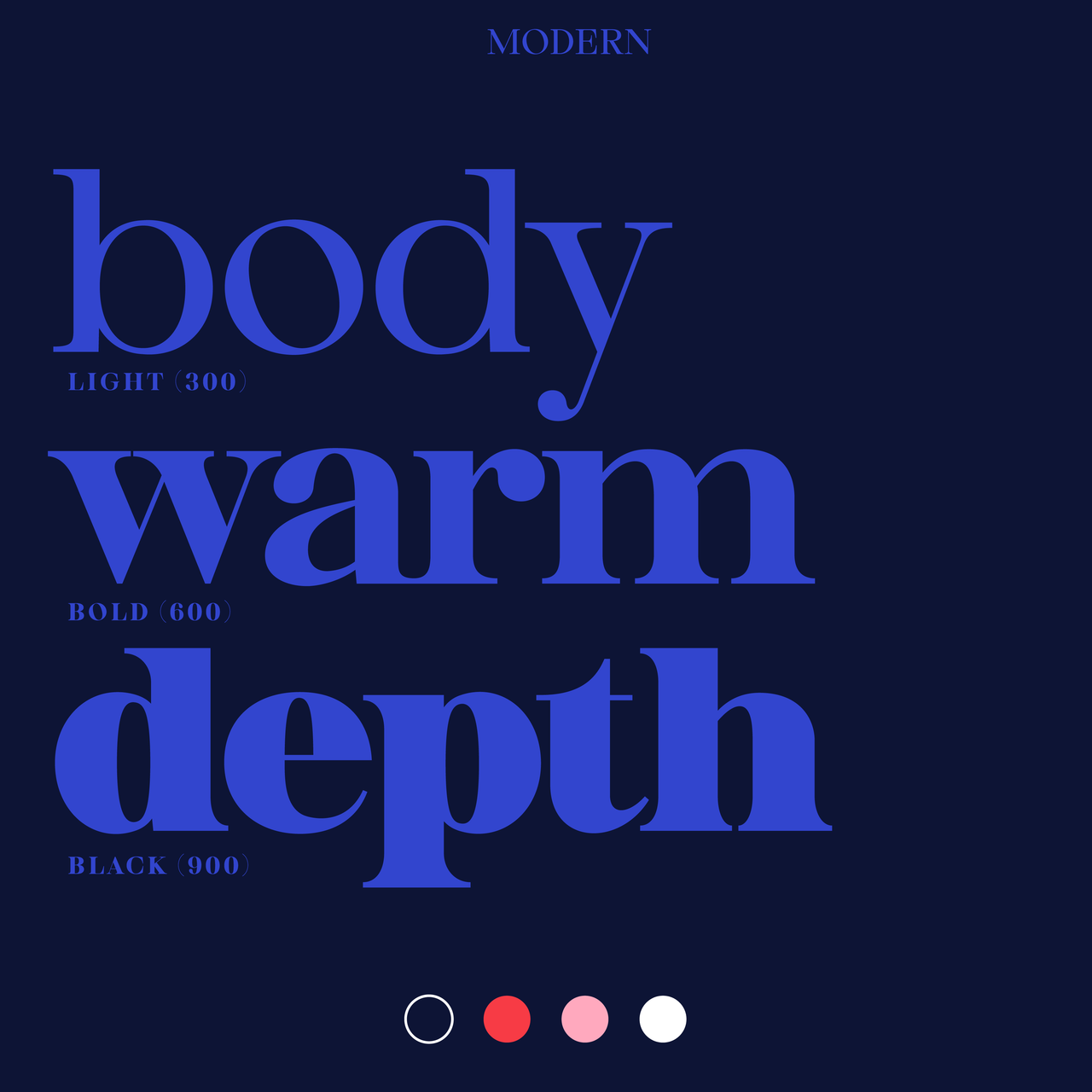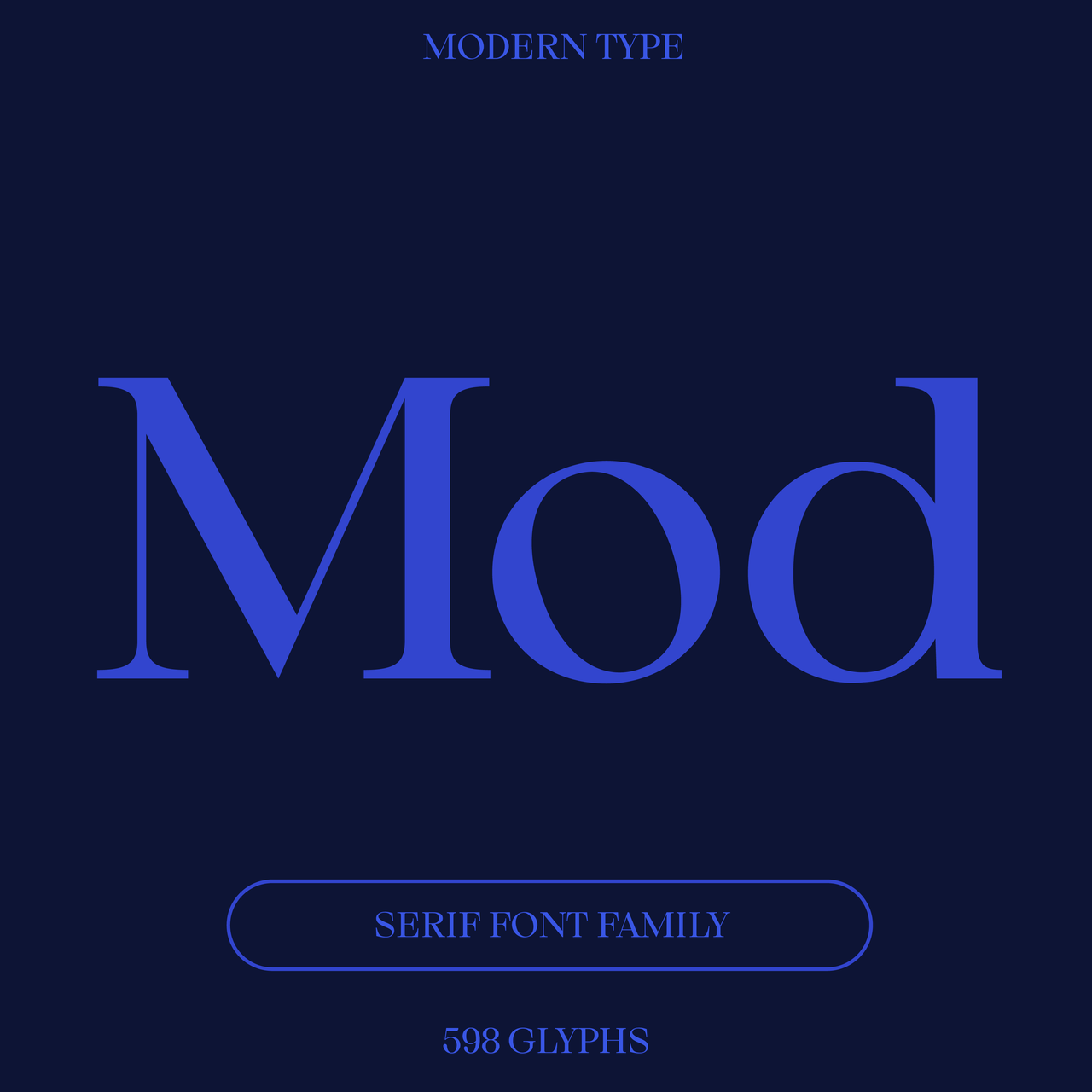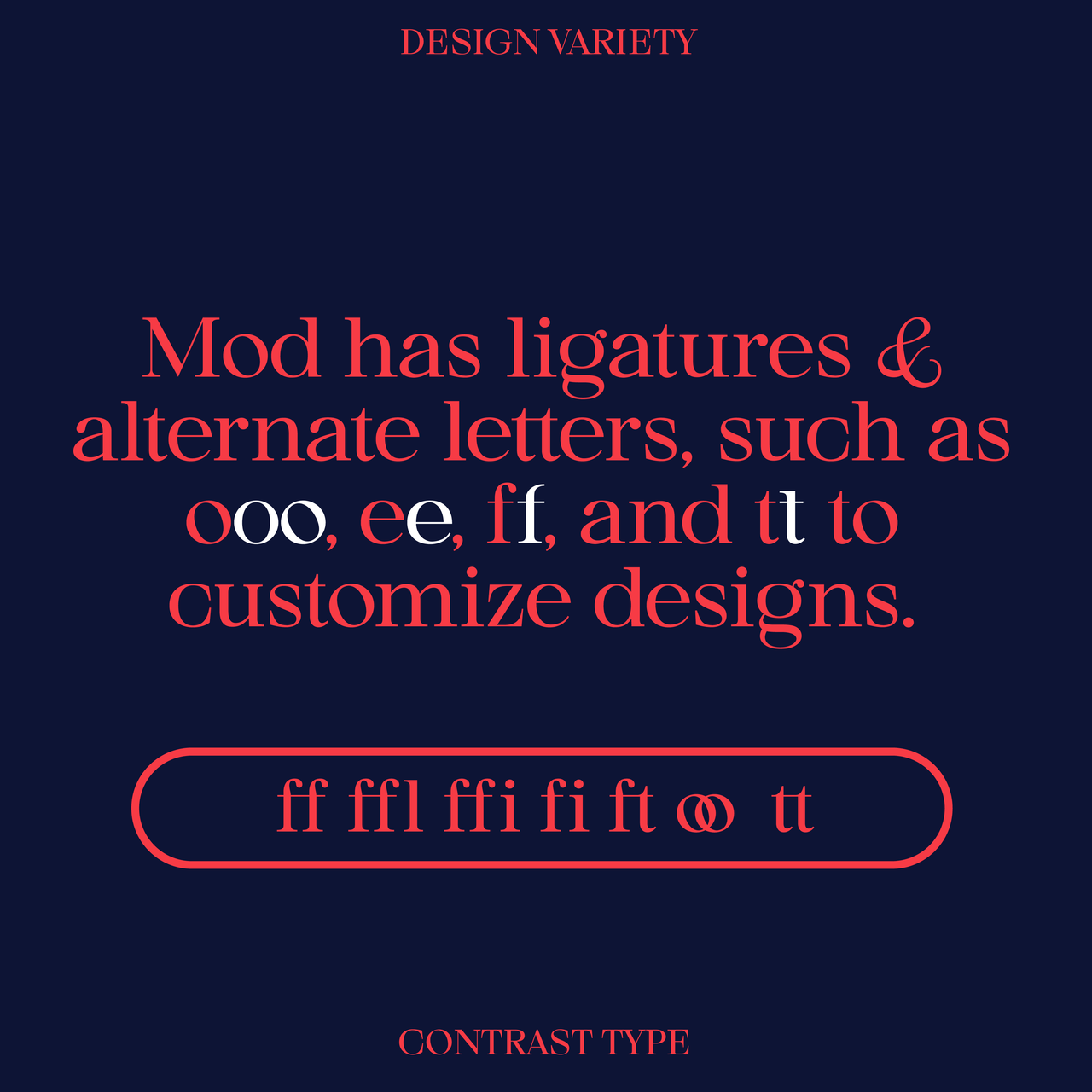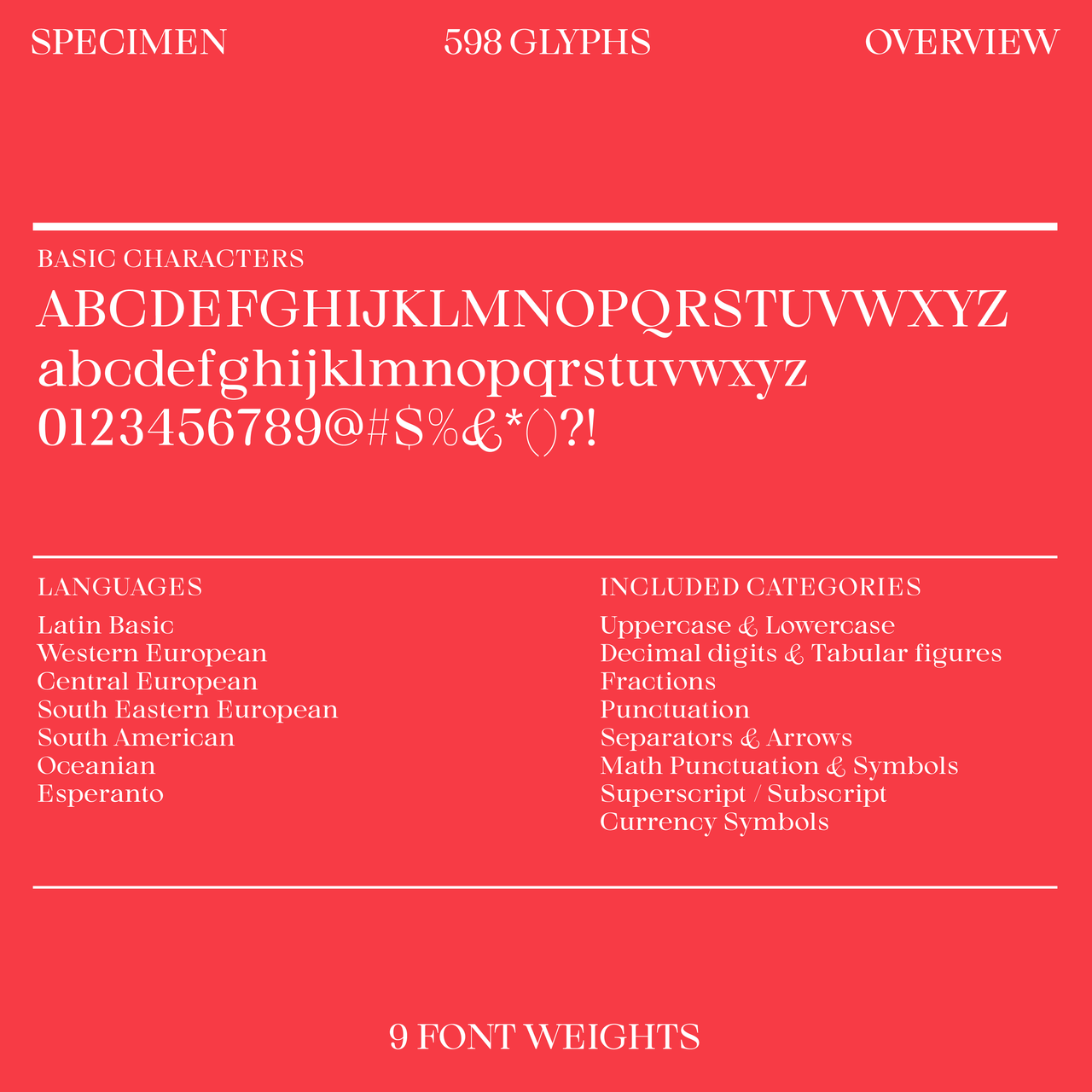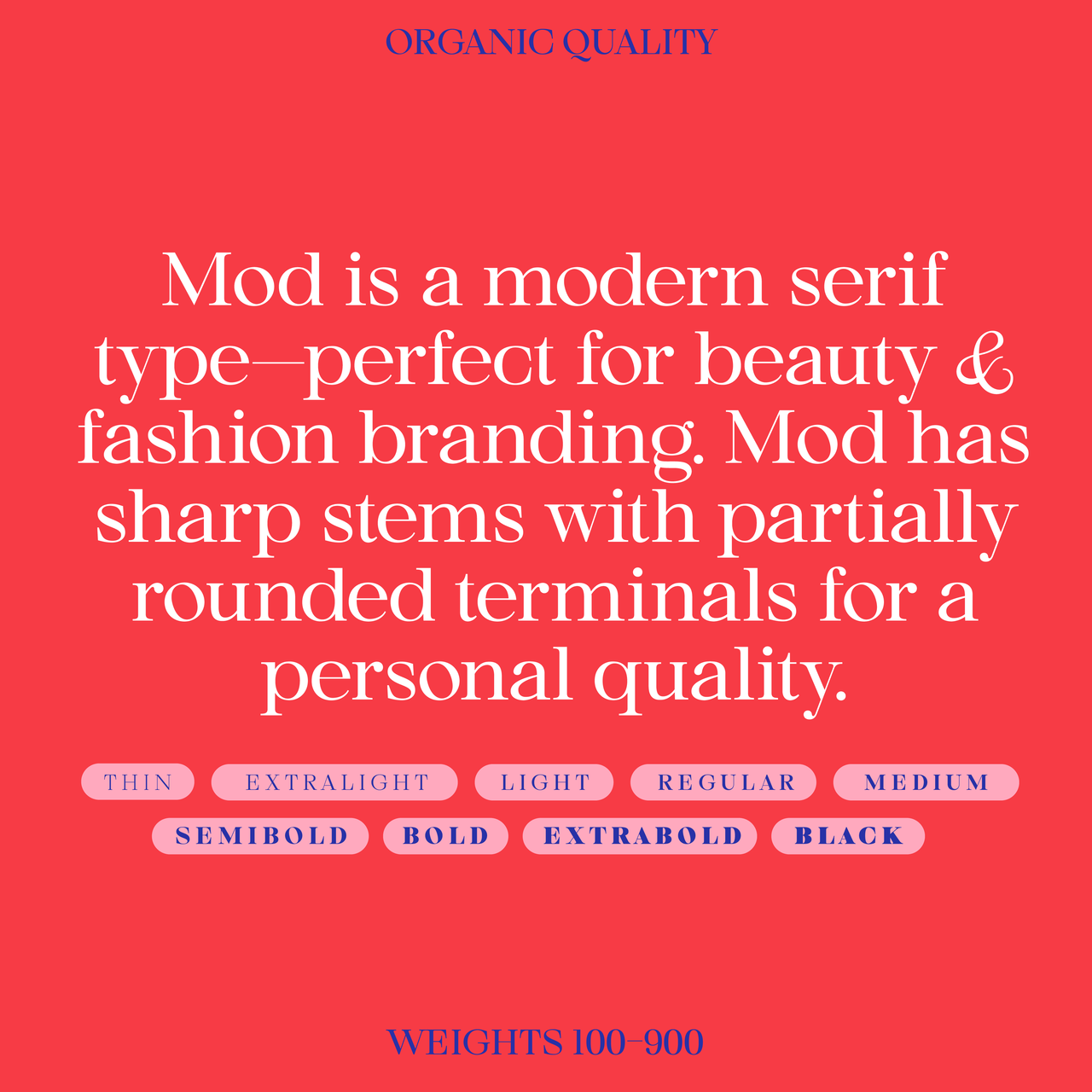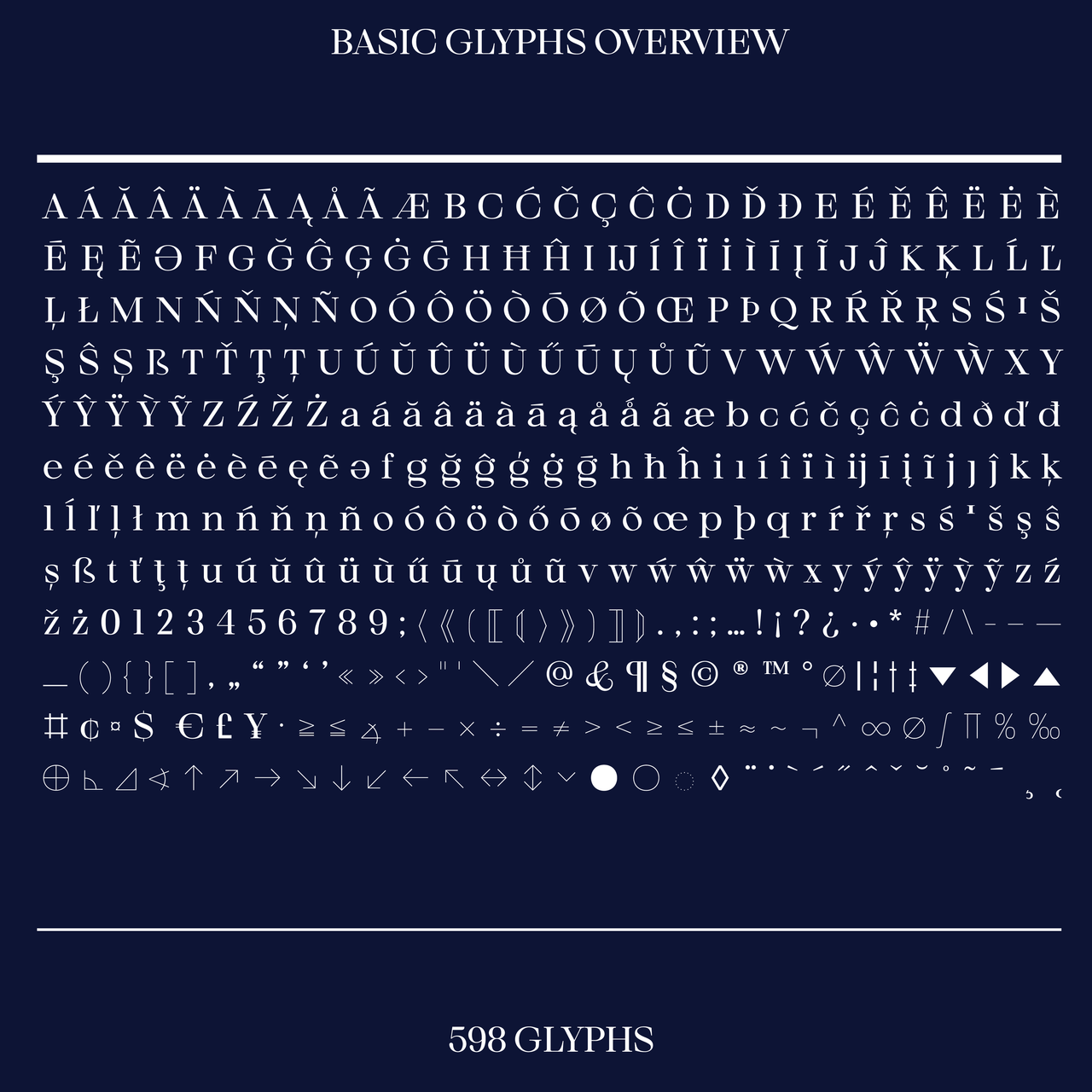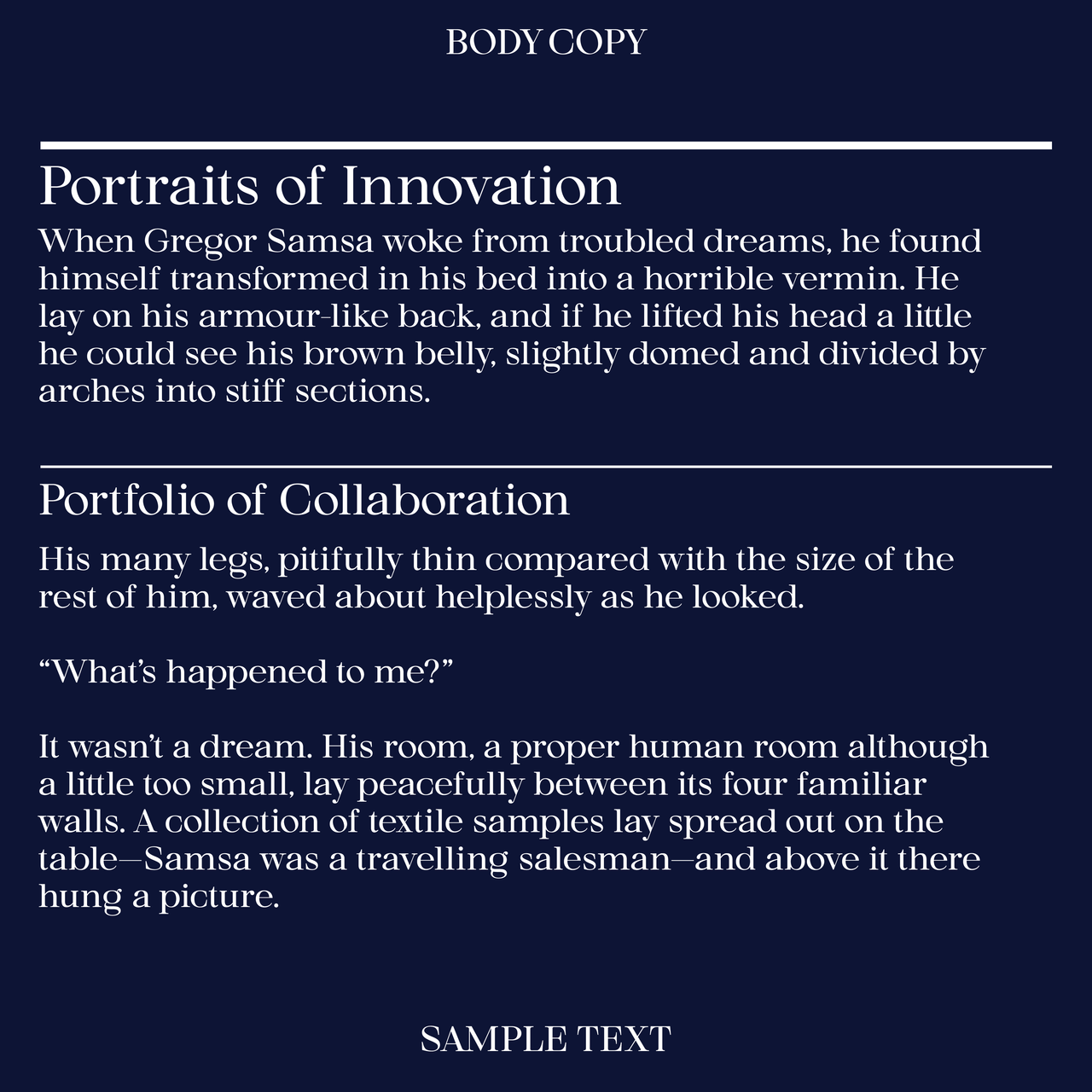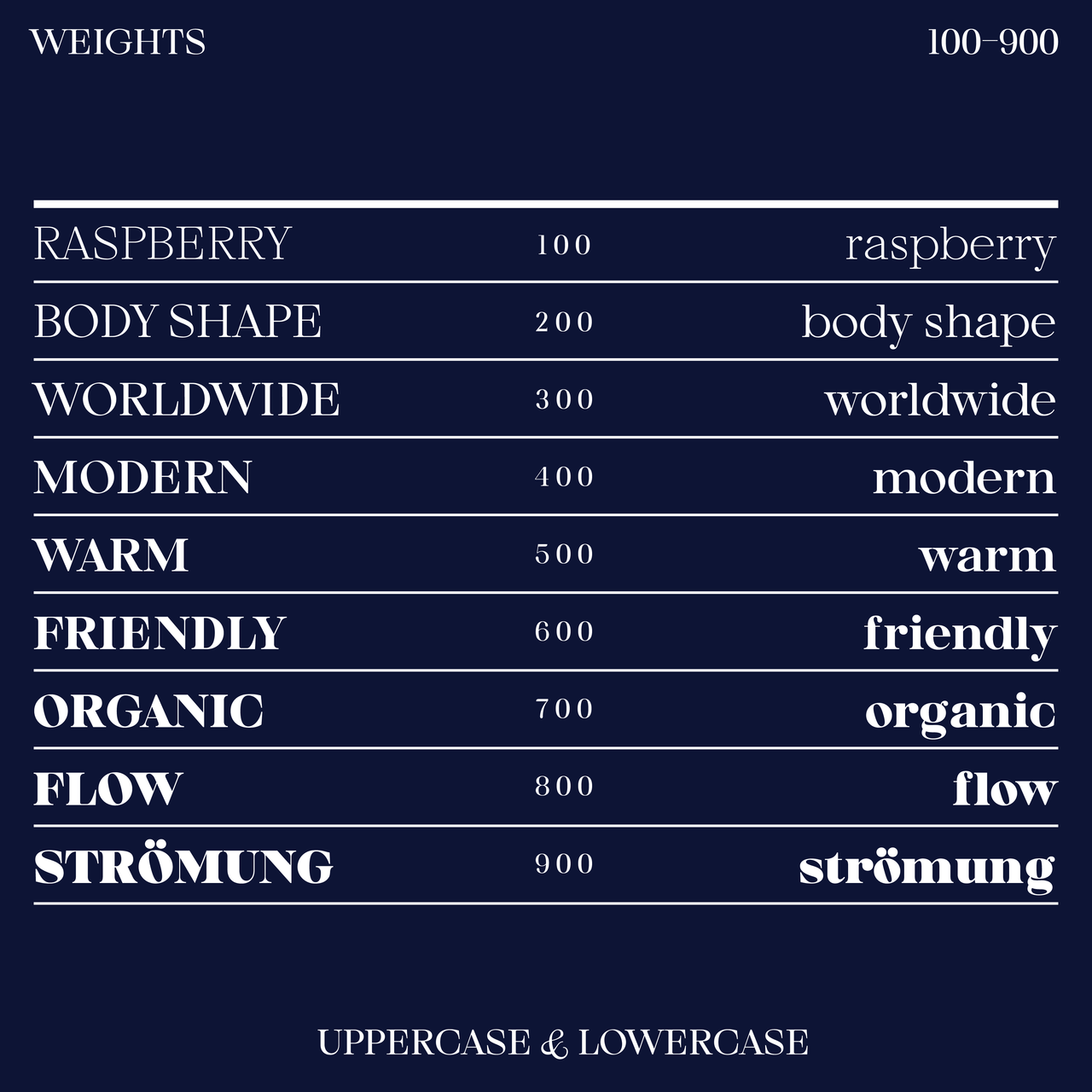
Bauhaus Mod—Modern serif font for elegance
Mod is a modern serif font perfect for beauty and fashion branding. Mod has sharp, strong stems with partially rounded terminals for a personal feel. Available in 9 weights and as a full family.